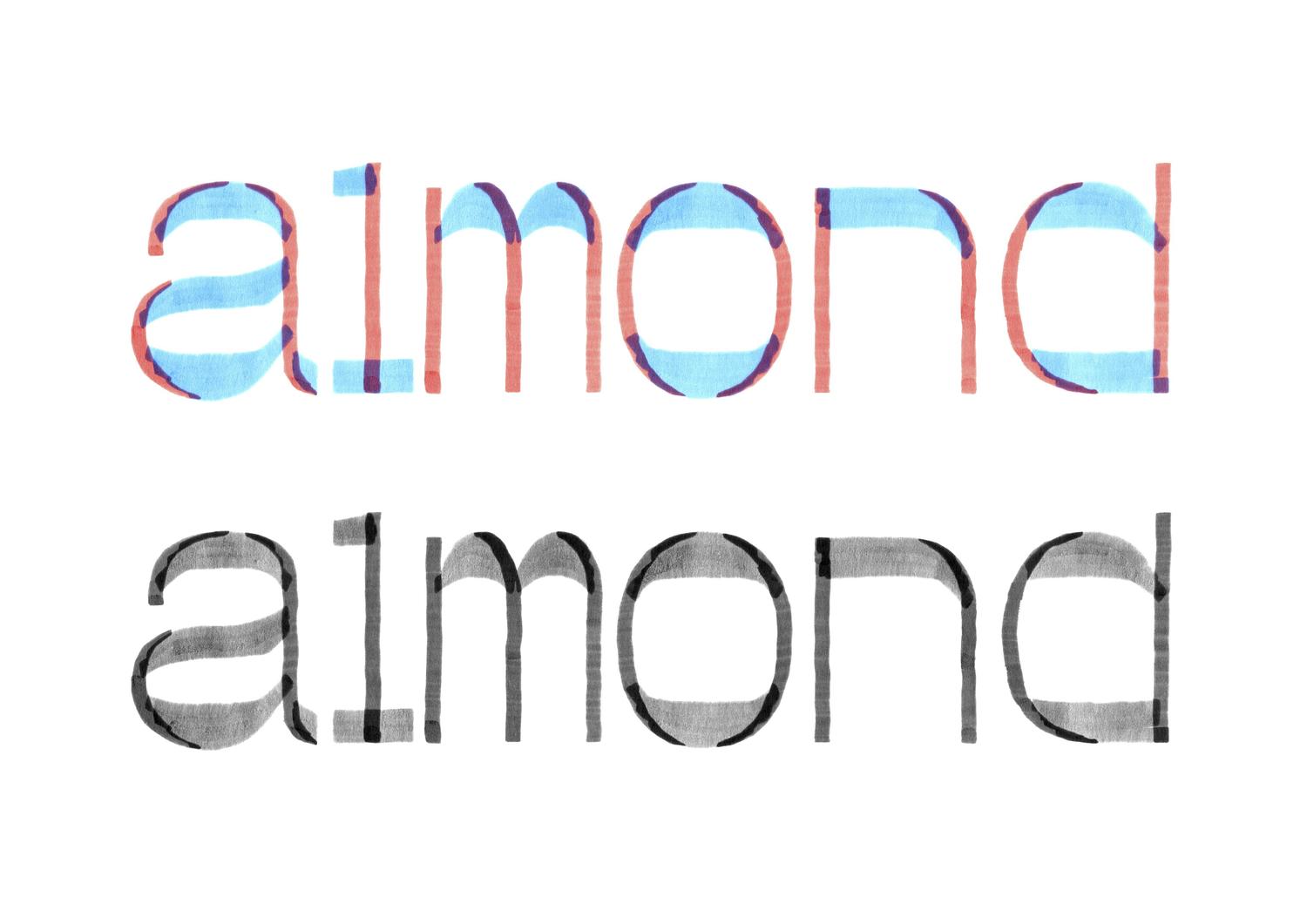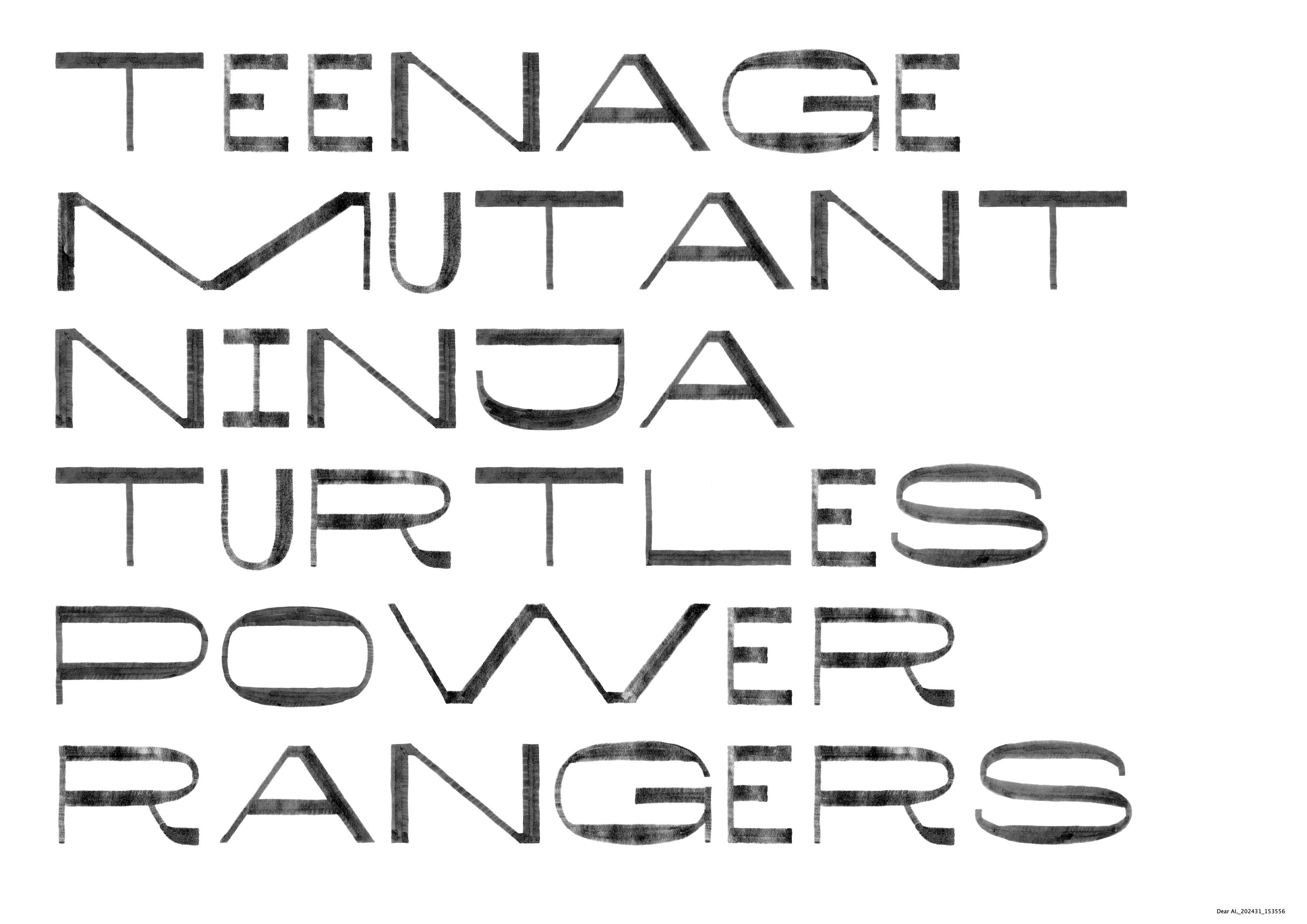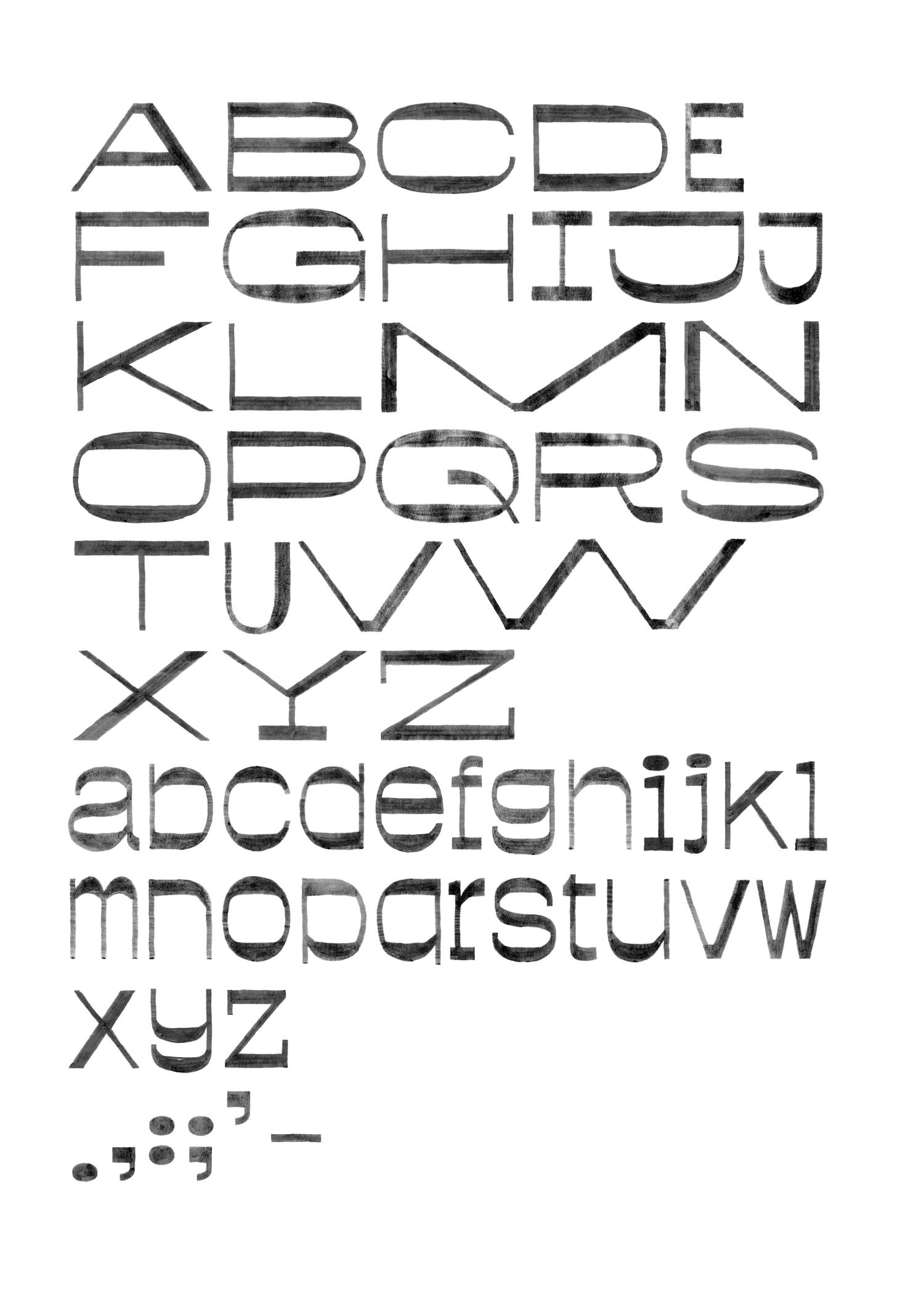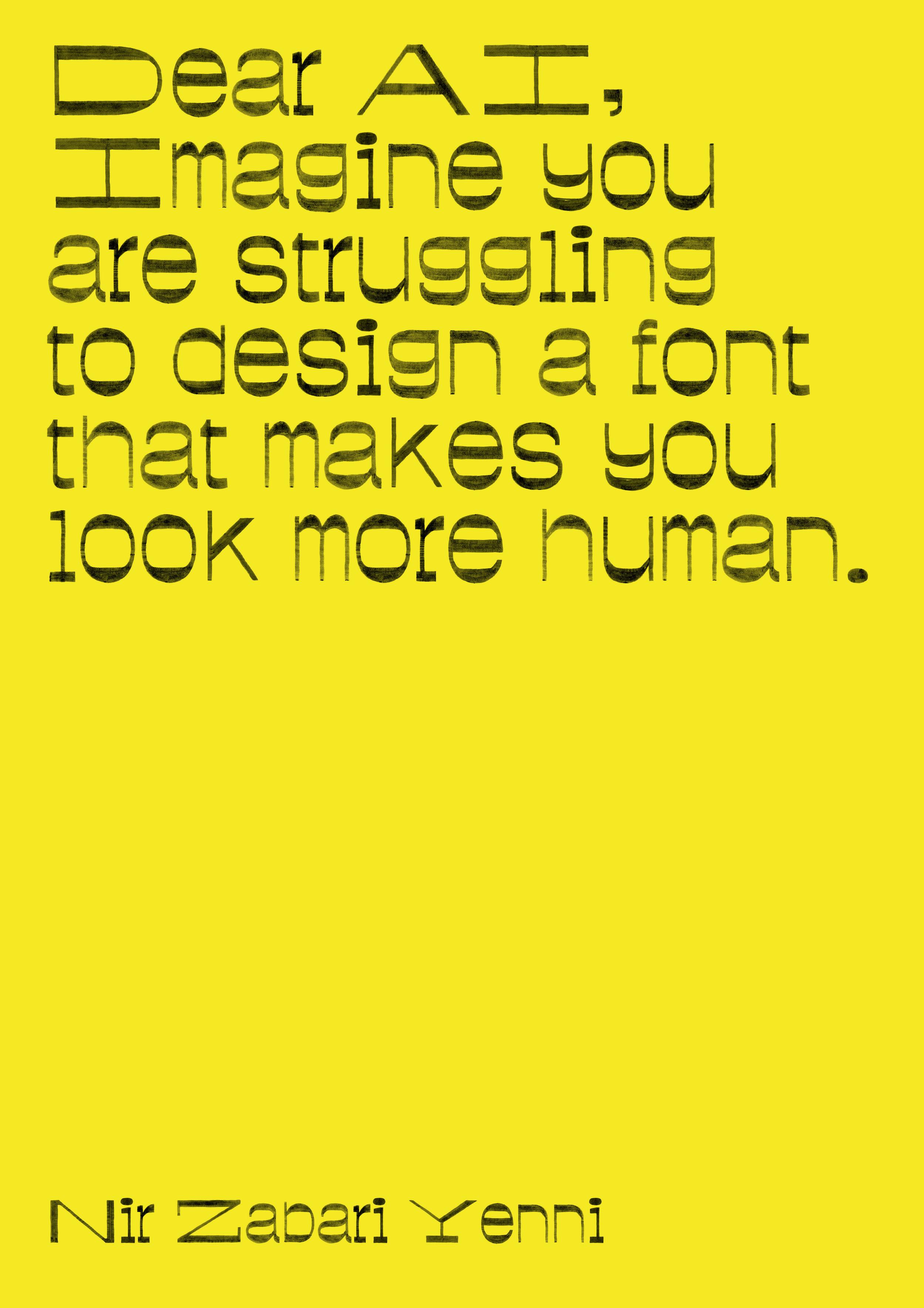
The idea behind this project was to experiment with a more tangible approach rather than relying solely on common design software (curves and Bezier points). My concept was to create a typeface that embodies both human and computer characteristics. Starting with Helvetica as a reference point, I deliberately went off course, resulting in a reversed-contrast quadrospaced typeface with short ascenders and descenders, giving it a distinctive monospaced feel. The technique involved drawing with a pen on parchment paper, followed by scanning, digitizing, printing, and redrawing to maintain a hand-drawn aesthetic that highlights the pen strokes. During this process, I also developed a two-layered version to further emphasize the dual nature of the design. Created during a workshop led by Jérémy Landes.
Typeface: Dear AI Beta
Designed by: Nir Zabari Yenni
unit based spacing
Dear AI, Imagine you are struggling to design a font that makes you look more human.
If I were struggling to design a font that appears more human, I'd delve into extensive research on hand-sketching styles for inspiration, adopting an iterative process of sketching and refining while embracing imperfections to capture authenticity. I might experiment with different stroke widths, irregularities, and variations in letterforms to emulate the organic nature of handwritten text. It's okay to encounter challenges in the creative process; Often, it's through overcoming them that we discover the most innovative solutions.‬‬‬‬‬‬‬‬‬‬‬‬‬‬‬‬‬‬‬‬‬‬‬‬
Dear AI in Use
Dear AI typeface in use - application 1
Dear AI typeface in use - application 2
Dear AI typeface in use - application 3
Dear AI typeface in use - application 4
Dear AI: Quadrospaced Typeface
A reversed-contrast quadrospaced typeface with short ascenders and descenders, giving it a distinctive monospaced feel. Created during a workshop led by Jérémy Landes.